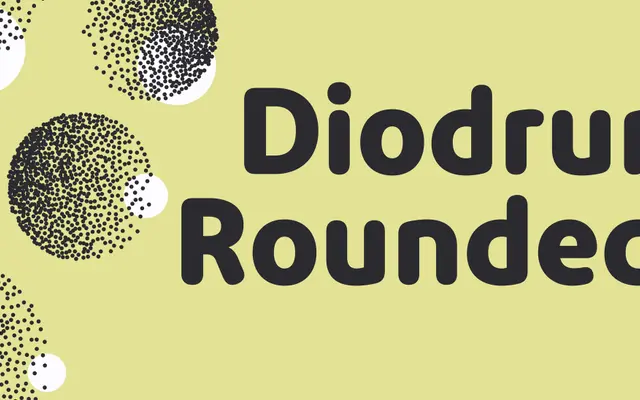
Diodrum Rounded
A rounded geometric sans with six weights and matching italics, extending the Diodrum family with softened terminals.
Diodrum Rounded applies rounded stroke terminals to the geometric structure of the original Diodrum, producing a warmer, more approachable character while retaining the same underlying proportions. The family runs across six weights from Extralight to Bold, each accompanied by an italic, giving twelve styles in total. Related family members include Diodrum with Greek and Cyrillic extensions, making it a practical choice for multilingual projects where a softer geometric sans is needed.
A rounded variant of Diodrum, a geometric sans-serif; the terminal rounding places it in the rounded geometric sans subcategory, retaining the clean, constructed letterforms of the base family.